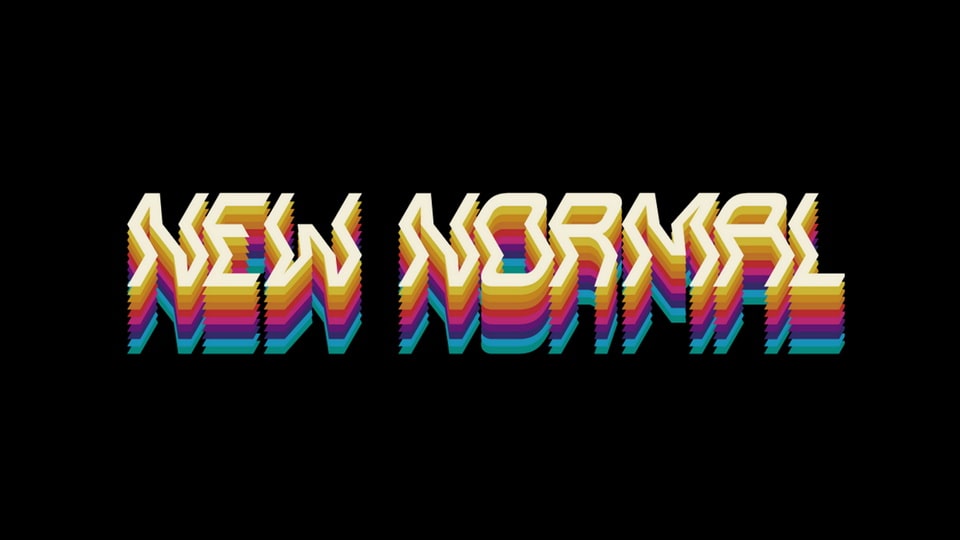
Download New Normal font, a weirdly normal display typeface with each character is folded into 3 planes which helps them interlock together. New Normal is an innovative font that takes your text into a new dimension.